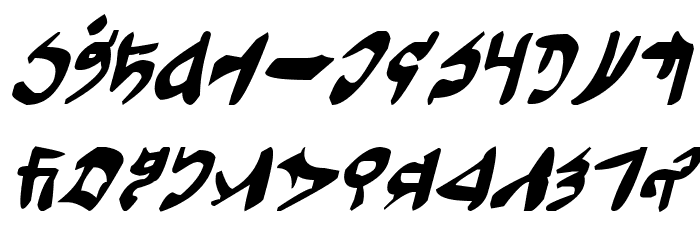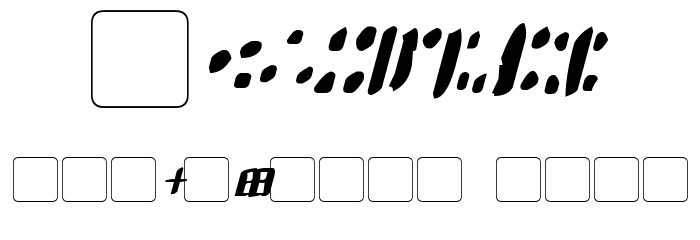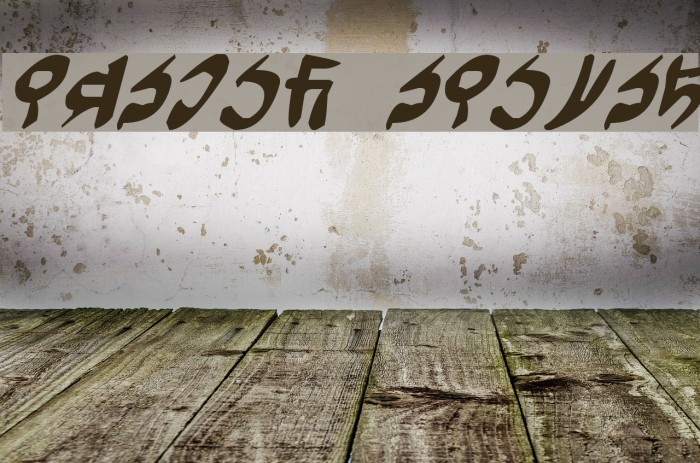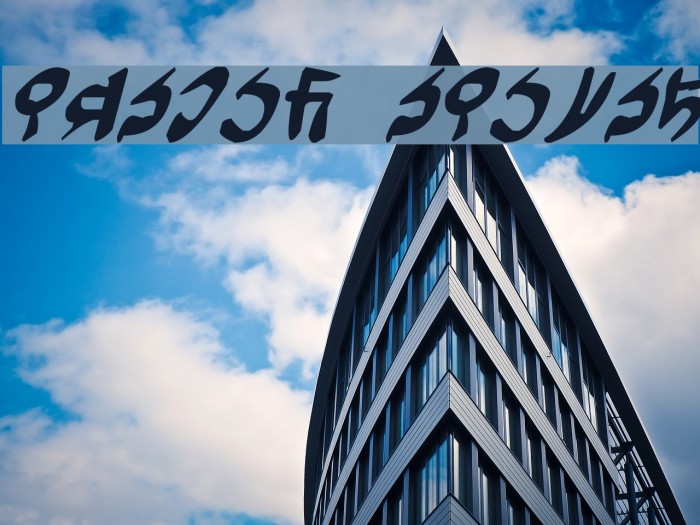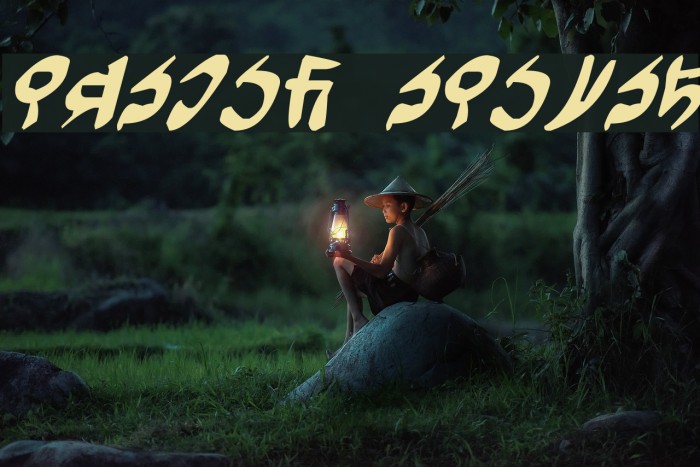
Tuigan Italic Font
This font features a bold, italicized style with a strong emphasis on angular, sharp edges and dynamic strokes. The characters are designed with a distinct slant, giving them a sense of motion and energy. The uppercase and lowercase letters maintain a consistent style, with exaggerated curves and pointed terminals that create a dramatic and impactful appearance. The numbers and special characters follow the same design principles, ensuring uniformity across all glyphs. This font's unique style makes it stand out, offering a modern and edgy aesthetic.
A bold, italicized font with sharp, angular strokes and a dynamic, modern style.